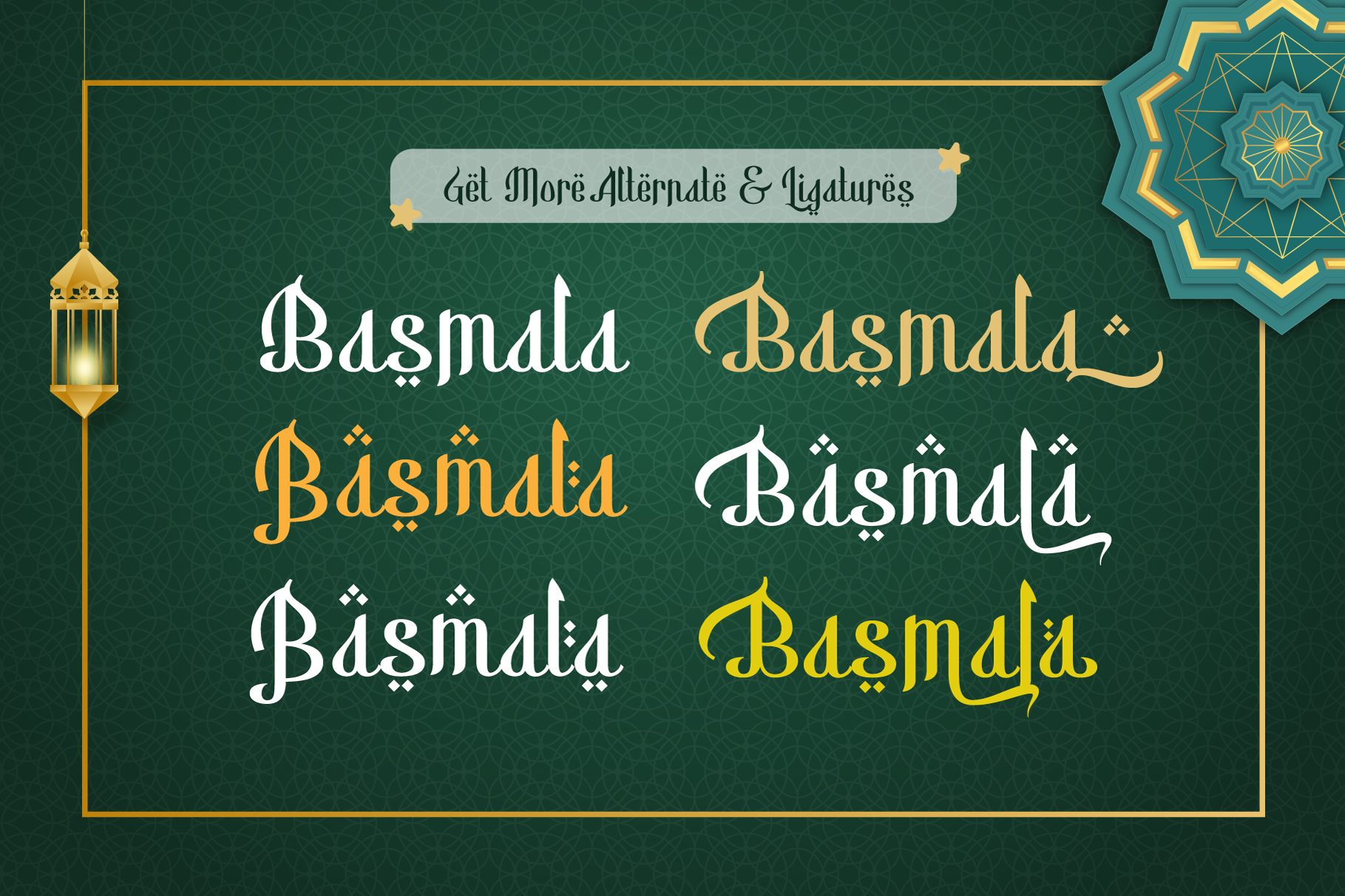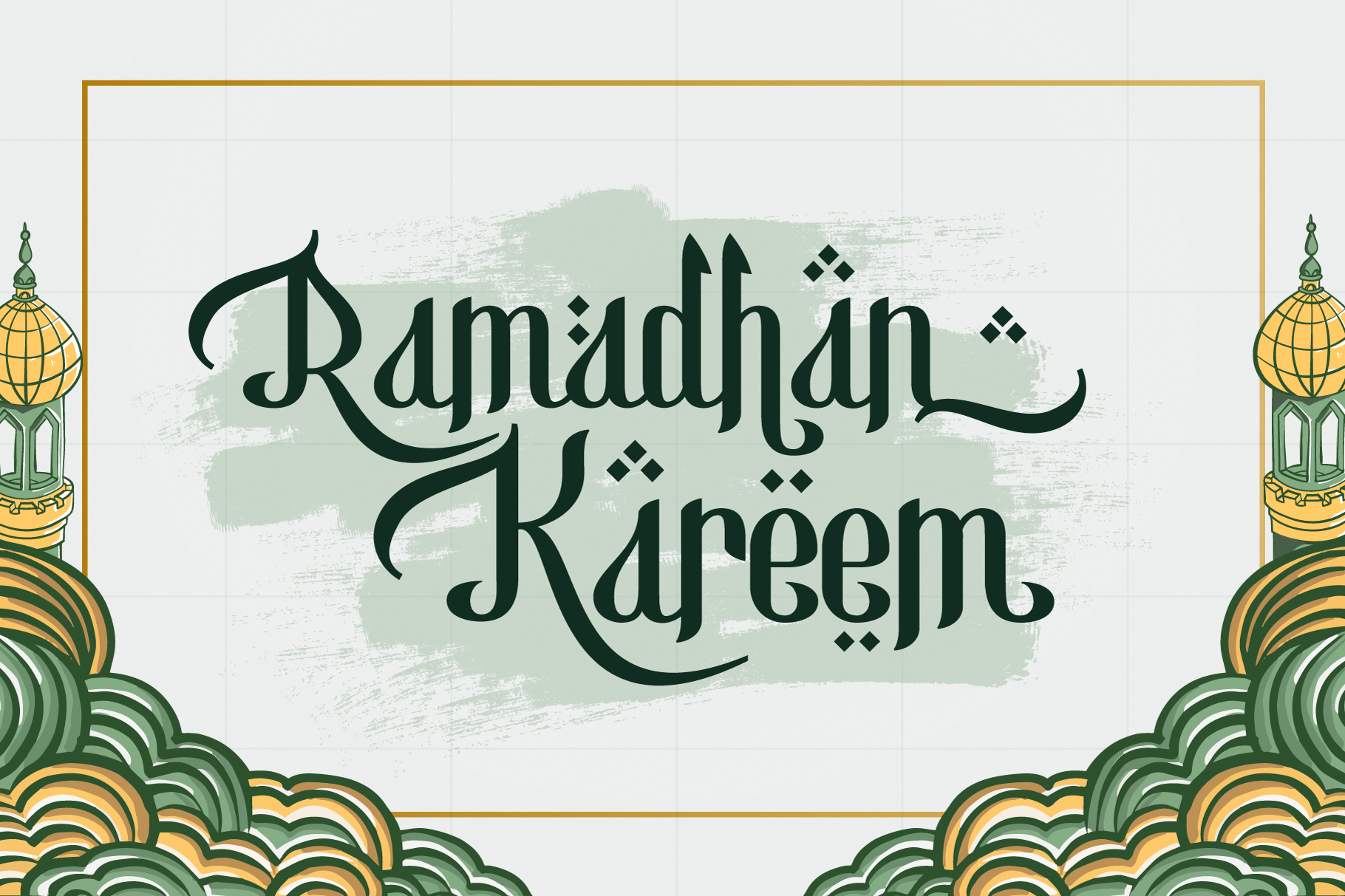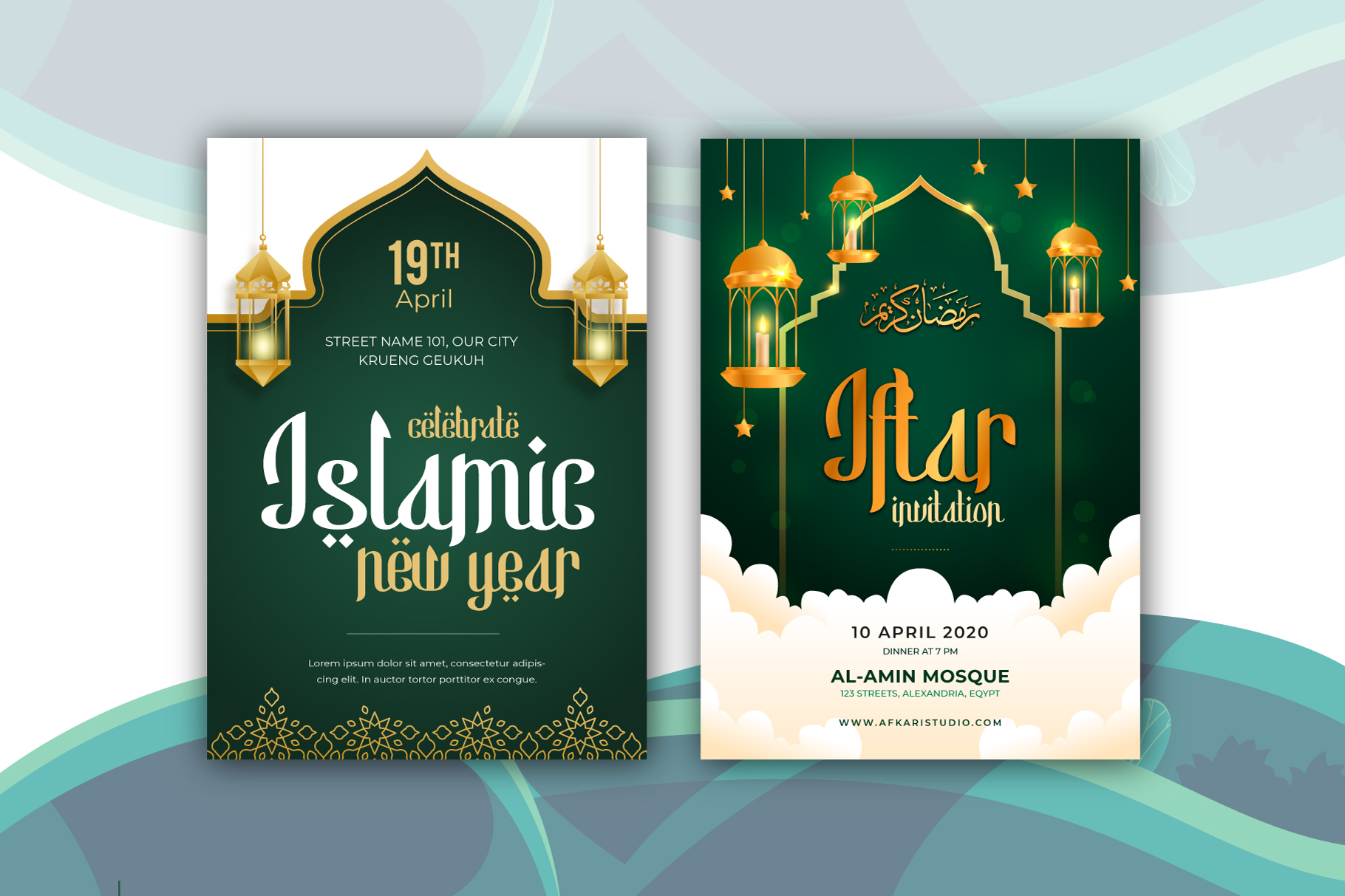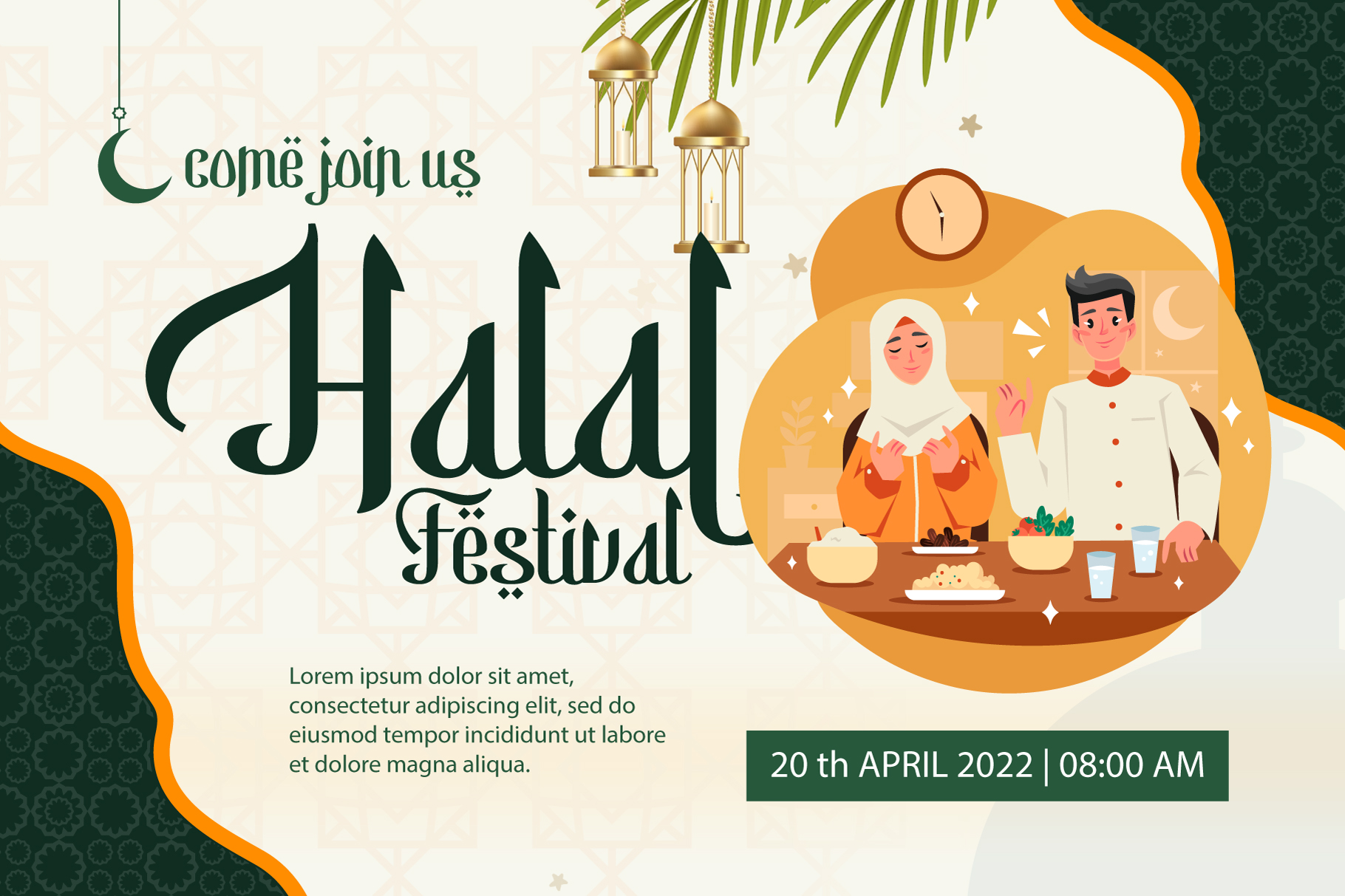
Basmala Font
Basmala Display Font
It’s an Arabic-styled display typeface. This Islamic Ramadhan Arabic font is perfect for any graphic design related to the Islamic style. You will get an Arabic feel to every text you type using this font. Made with Latin characters so that it can be read internationally which does not have to be able to read Arabic characters